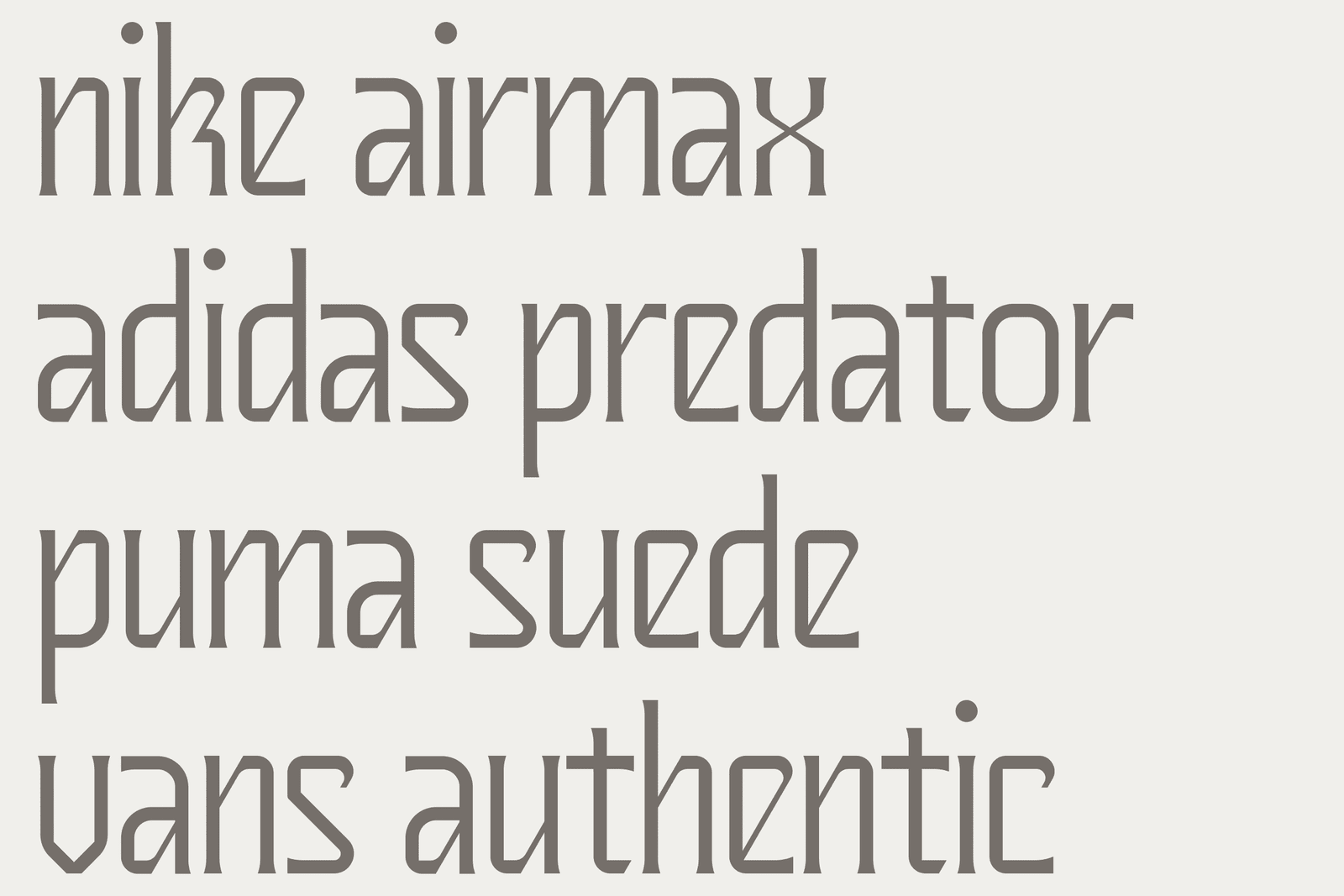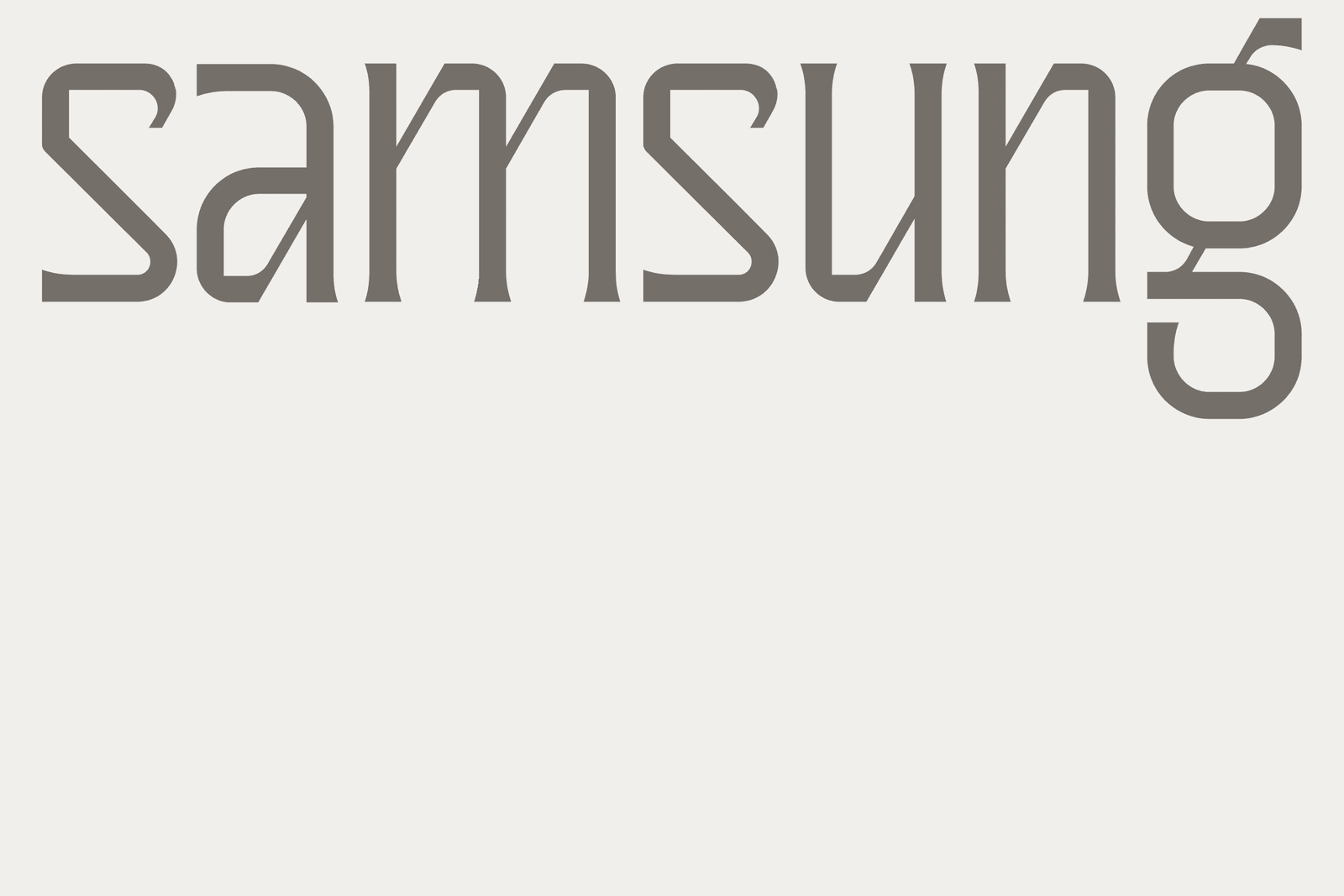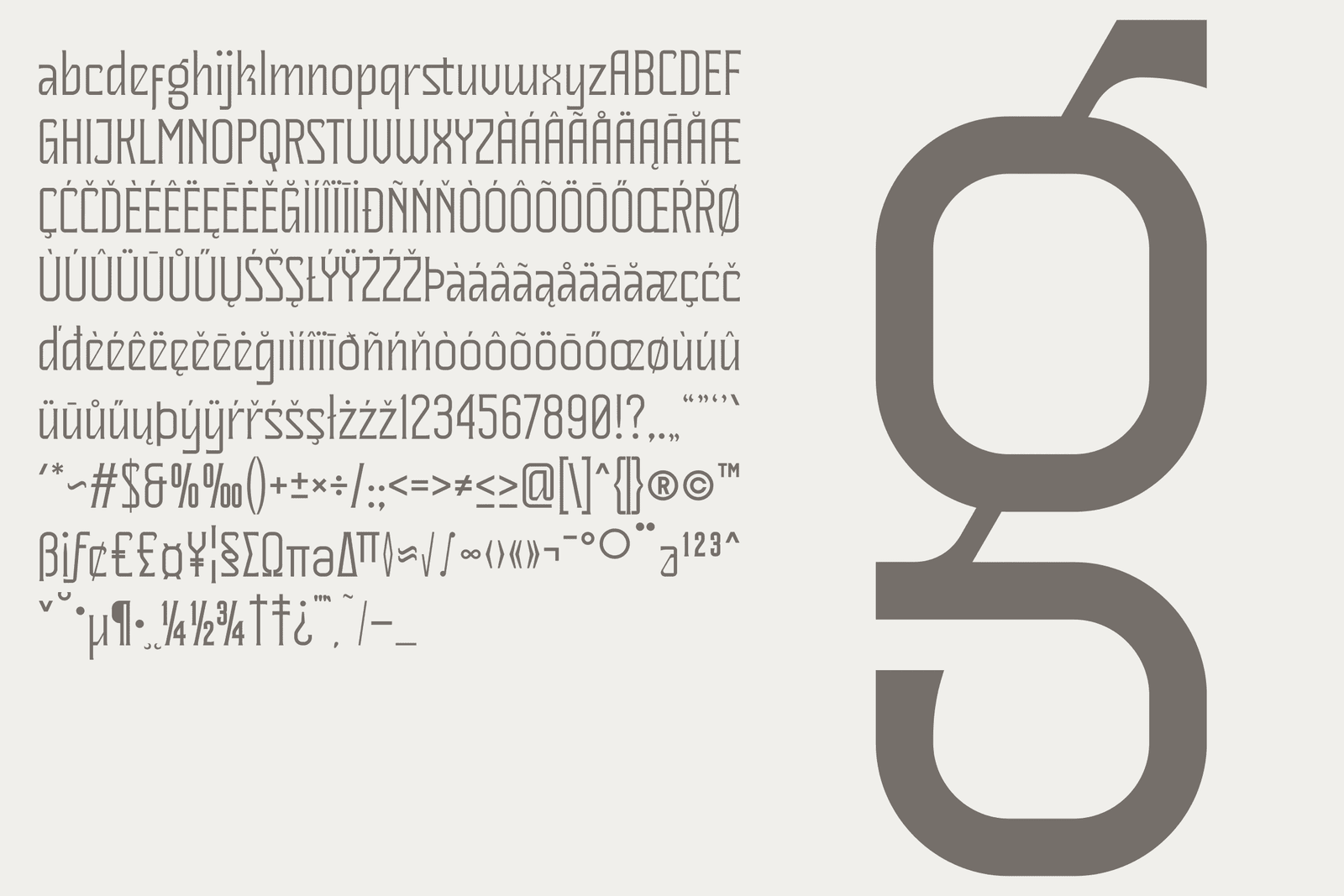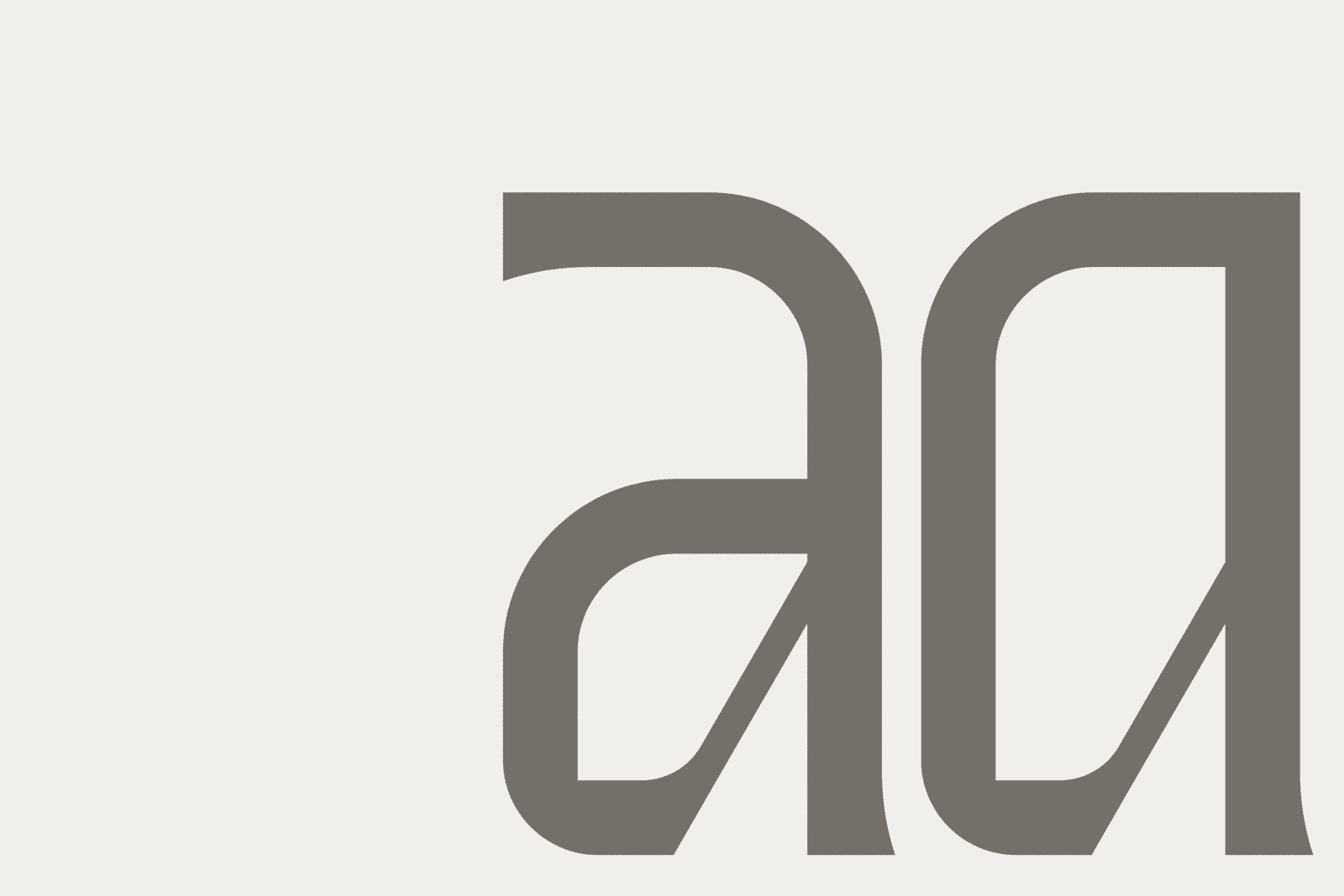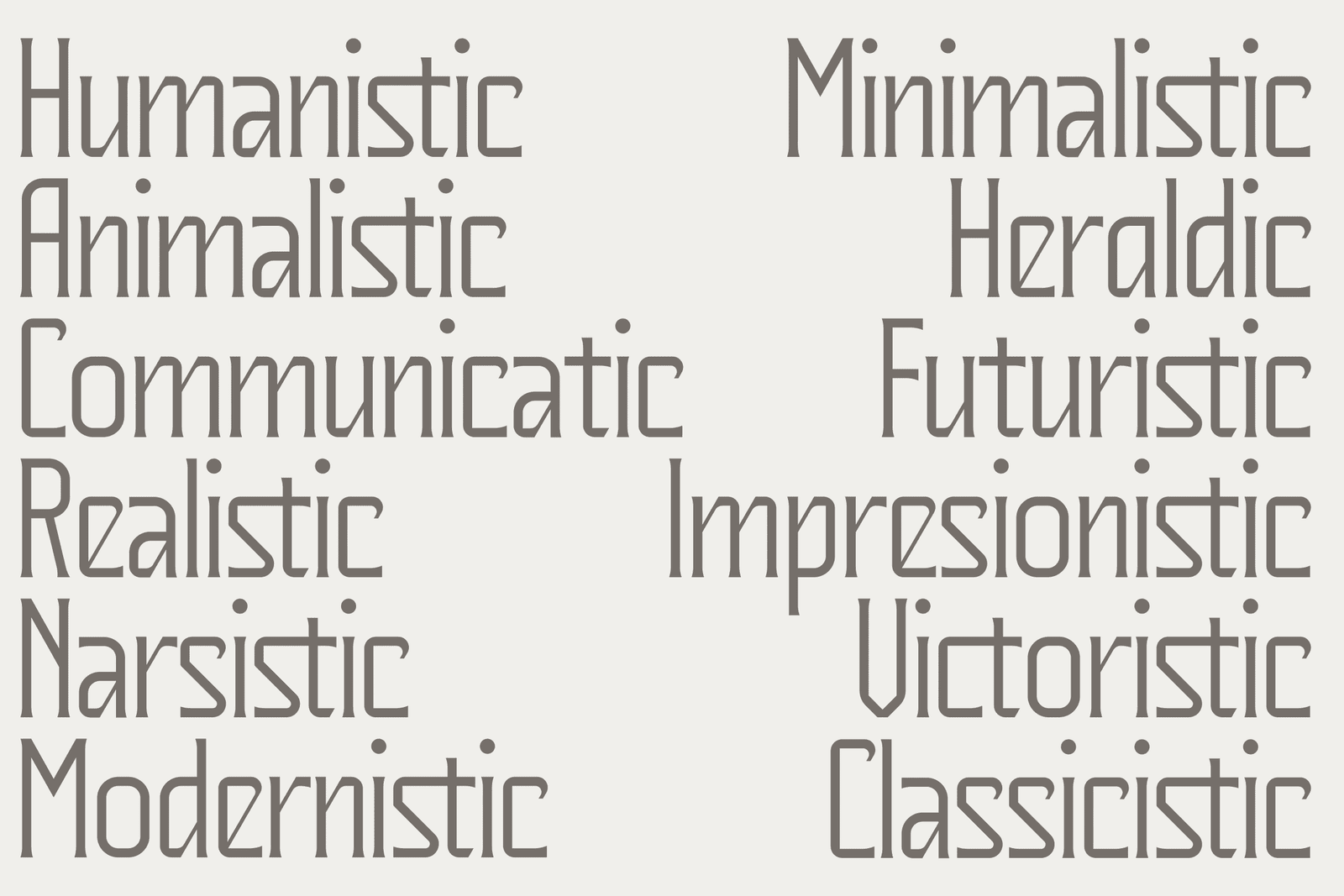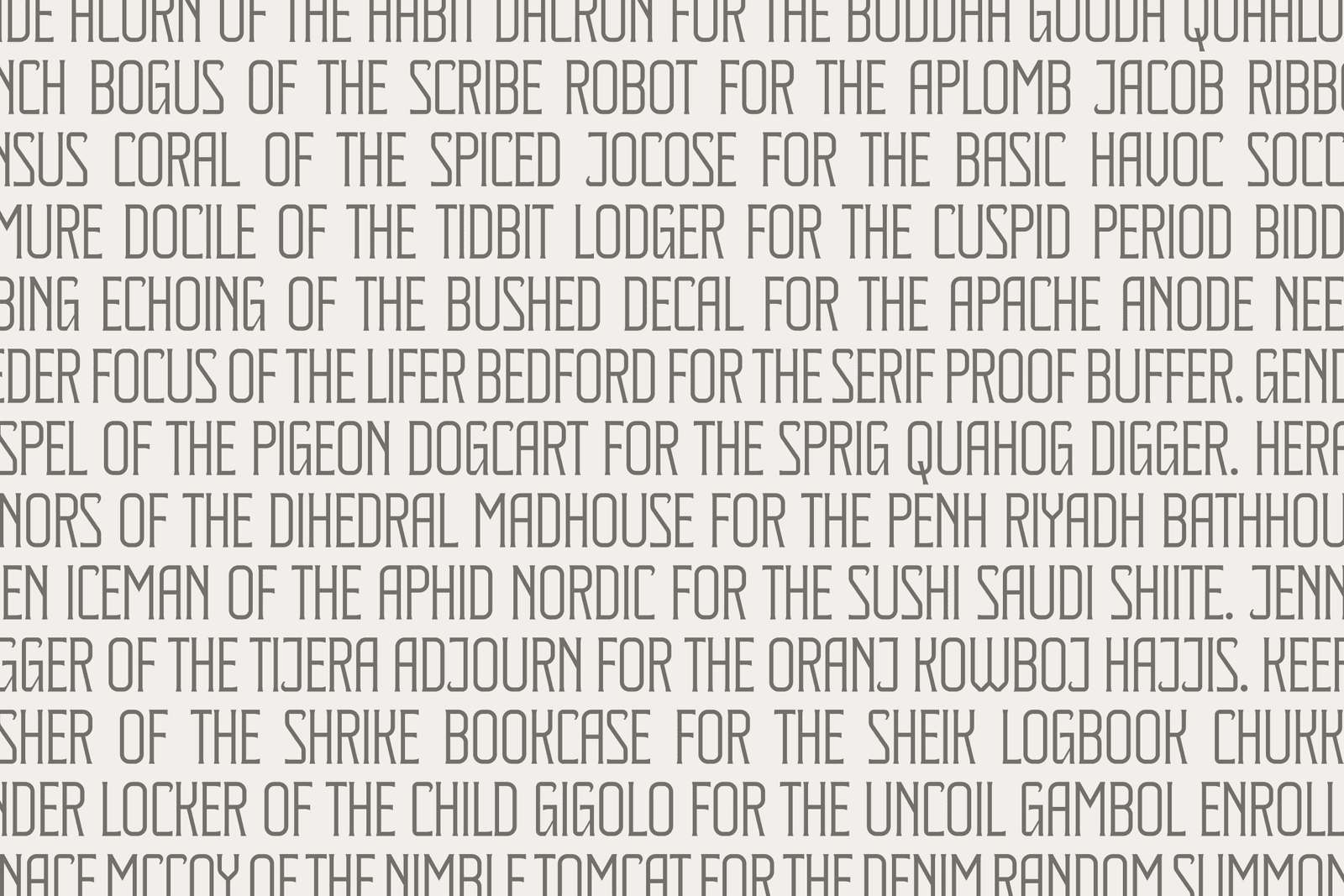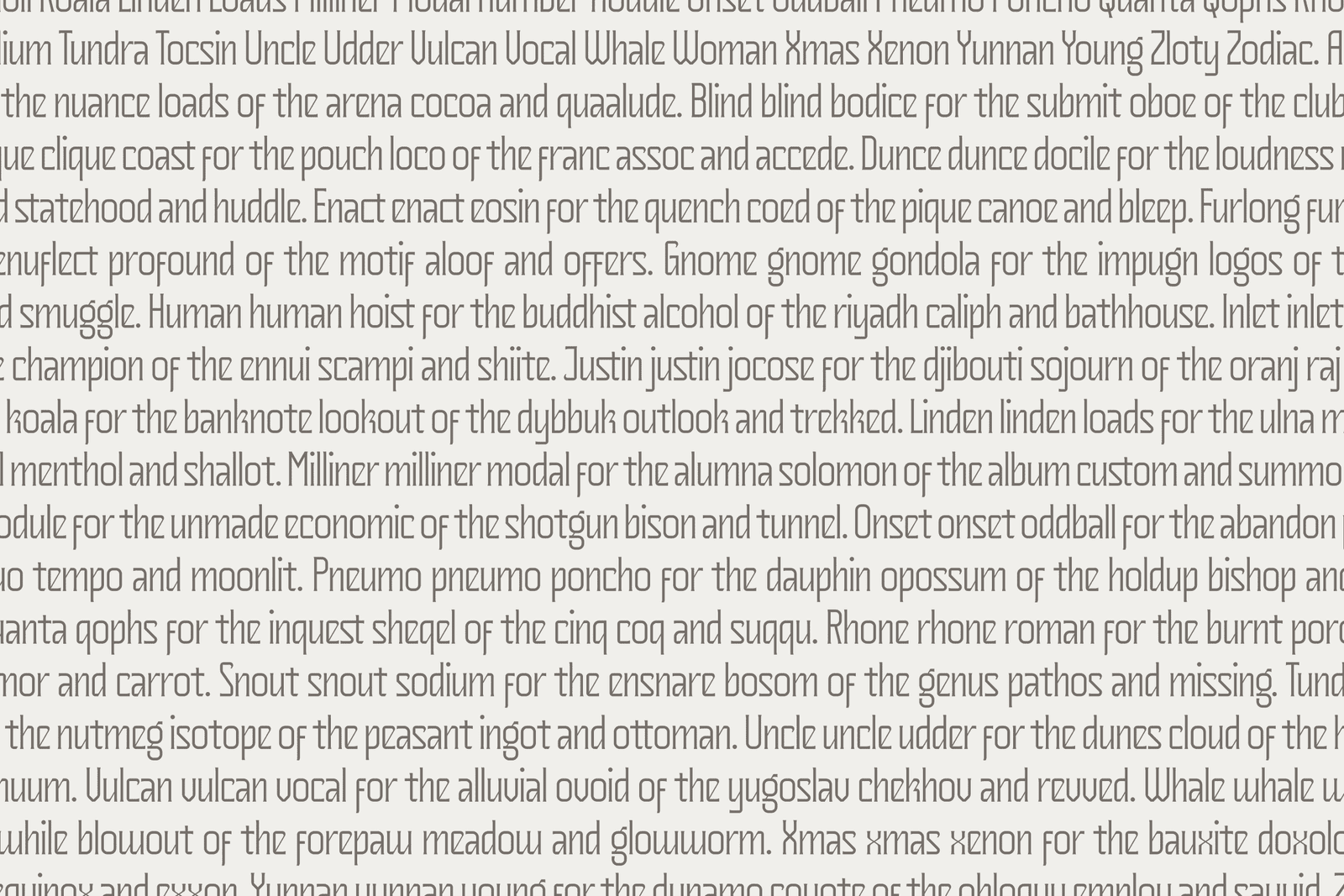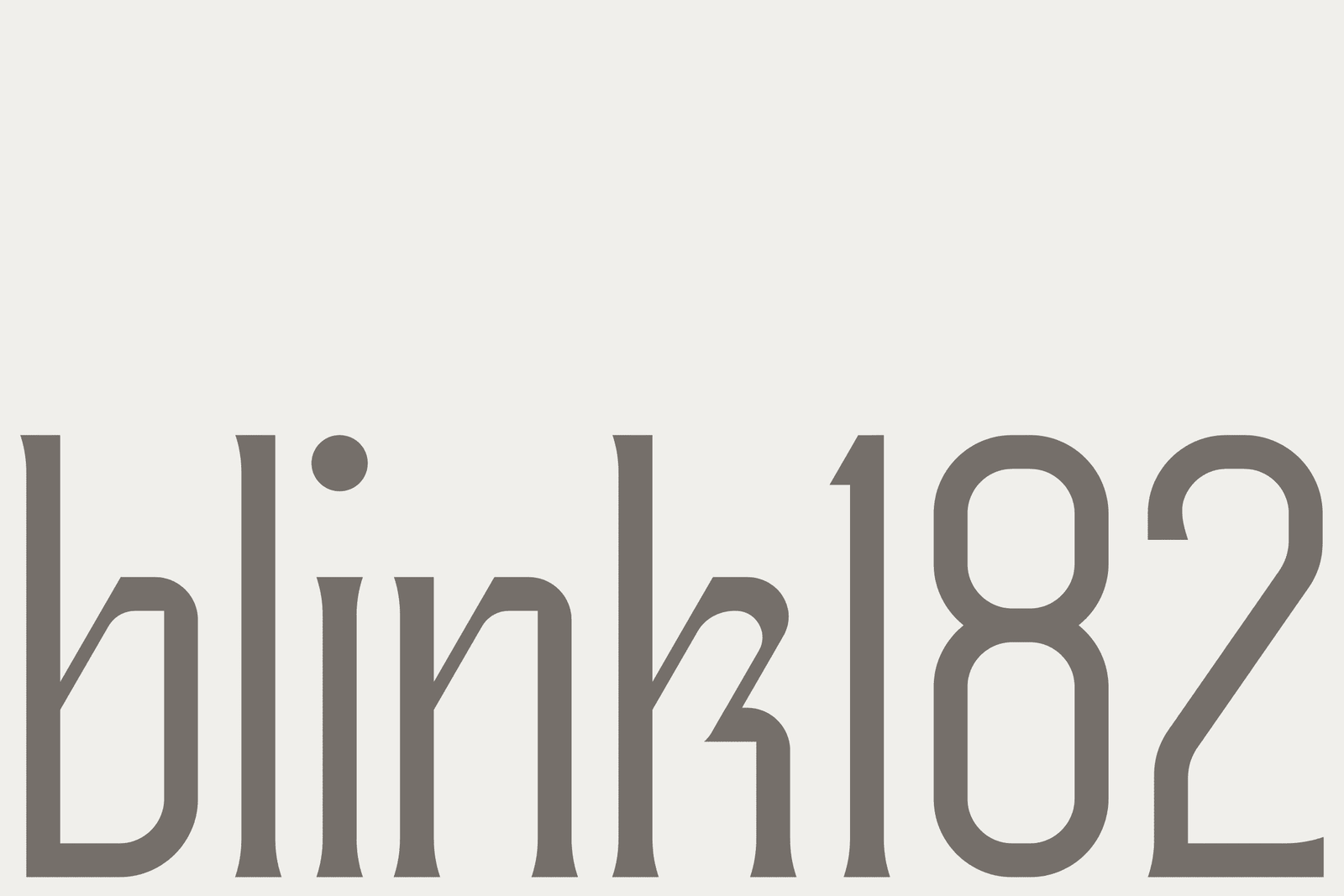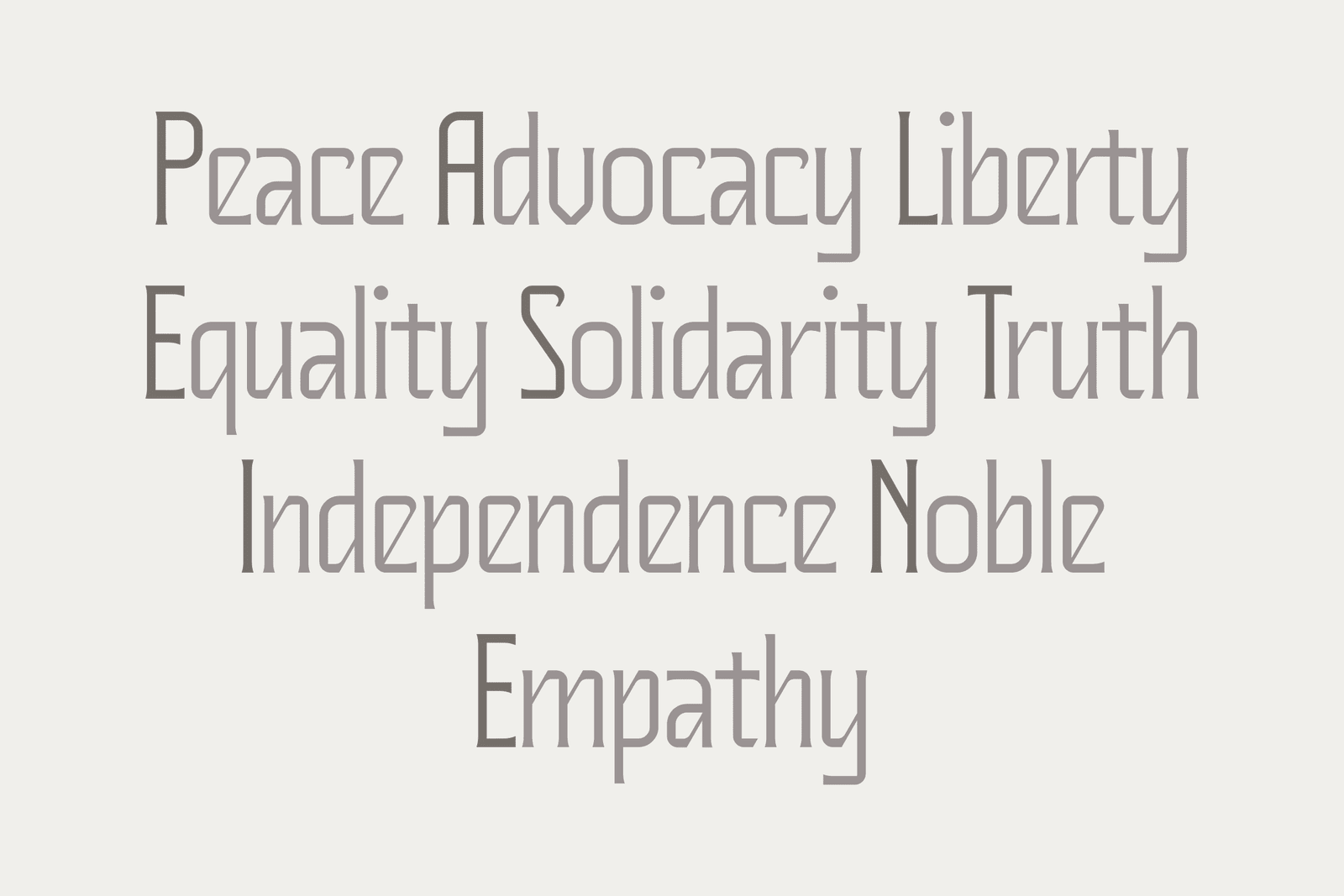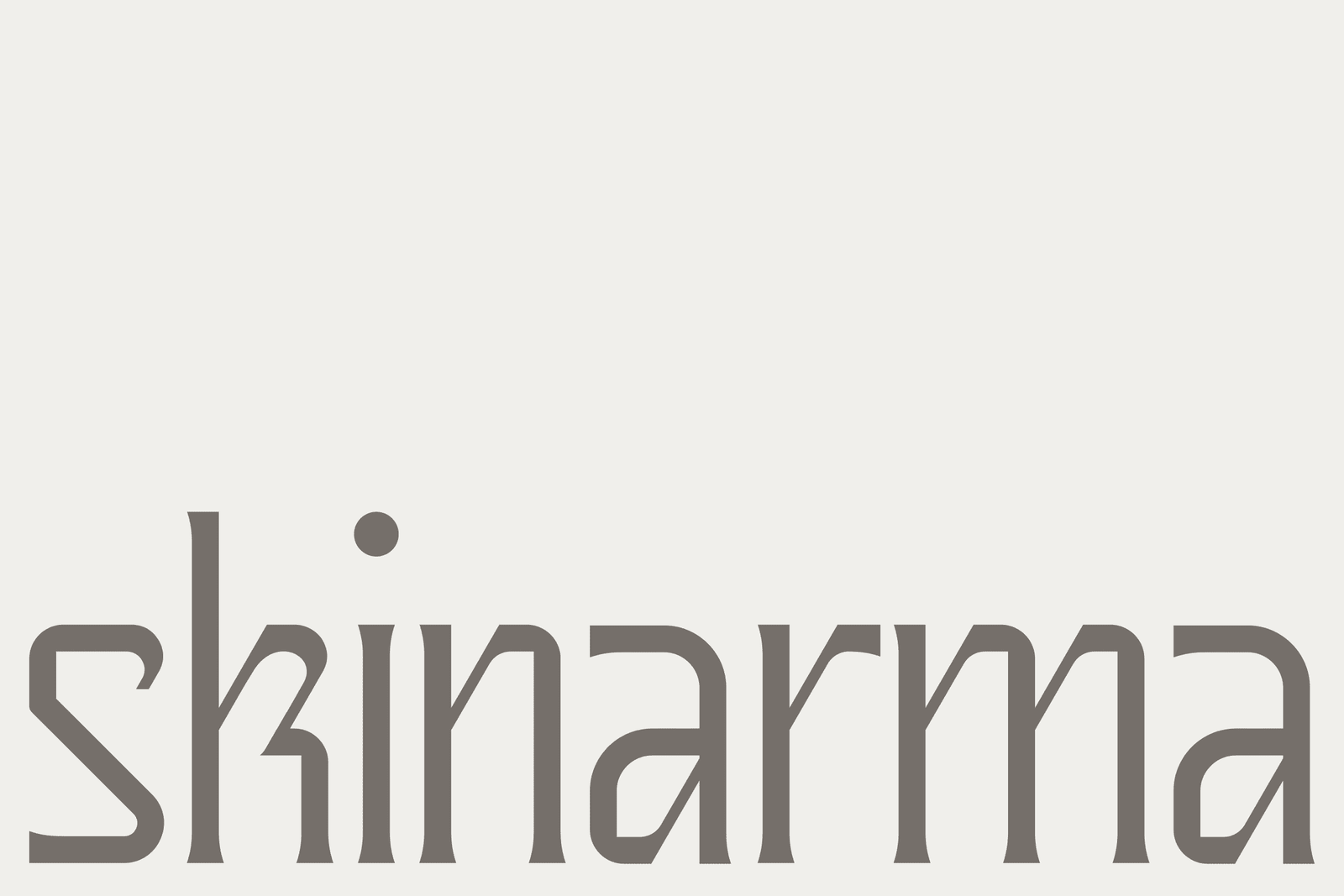
Where the sharp precision of sci-fi meets the ornate weight of medieval nobility, you’ll find Gulling.
Gulling is a high-concept display font designed for those who need to bridge the gap between “once upon a time” and “light-years from now.” It takes the structural DNA of classic blackletter and heraldic engravings and flattens it into a sleek, ultra-modern silhouette.
Drawing inspiration from royal crests and gothic architecture, Gulling maintains a rigid, authoritative verticality. Every curve is interrupted by intentional, sharp geometric gaps—reminiscent of circuit boards and starship plating. The font balances thick, commanding stems with razor-thin horizontal ligatures, creating a visual rhythm that feels both ancient and engineered.
Gulling isn’t just a font; it’s a statement of power. It is perfectly suited for Luxury tech startups, high-end automotive logos, or modern fashion houses, Title sequences for “Cyber-Fantasy” films, RPG interface design, or album art for industrial/synth-wave artists, High-impact headlines that require a sense of permanence and “New Age” prestige.